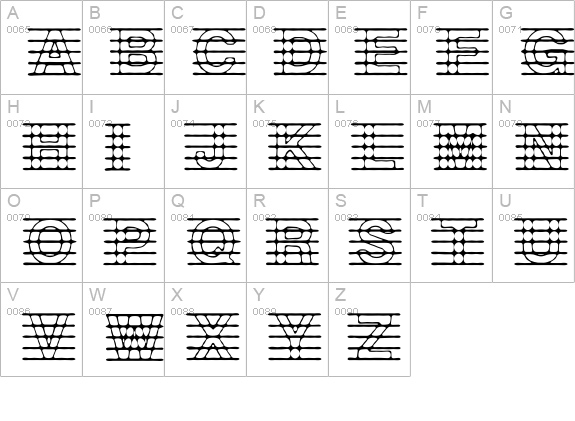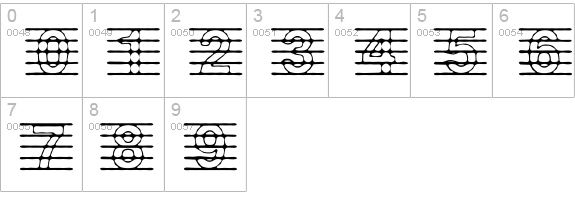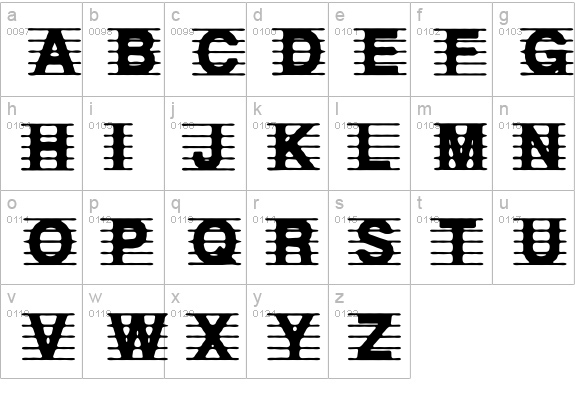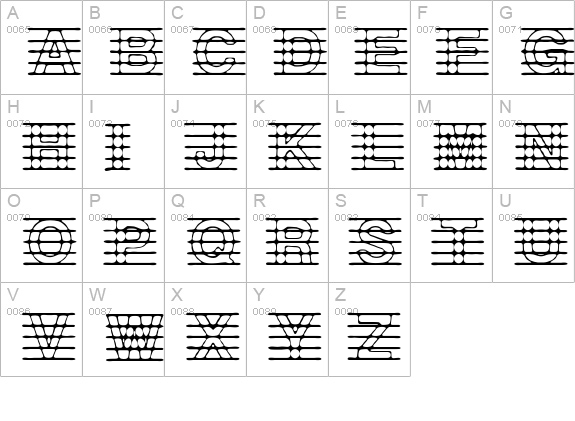
distracted musician Font Details
The Distracted Musician font captures the essence of creativity and inspiration, perfect for adding a whimsical touch to your designs. With its unique blend of playful curves and elegant strokes, this font effortlessly conveys a sense of artistic flair and musical harmony. Whether you're working on a music-related project or simply looking to infuse your designs with a touch of creativity, the Distracted Musician font is sure to make a bold statement. Best of all, the Distracted Musician font is available for free download at FontsMarket.com, making it easily accessible for designers and creatives alike. So go ahead, unleash your imagination and let the Distracted Musician font inspire your next masterpiece.